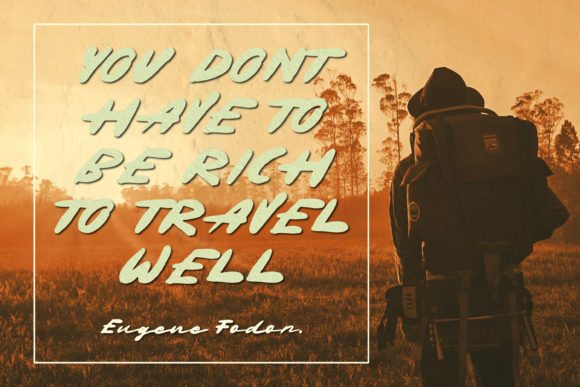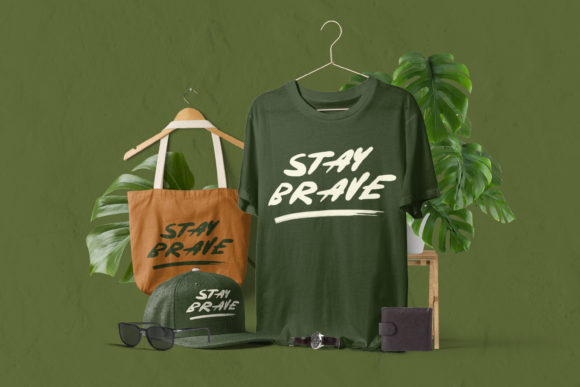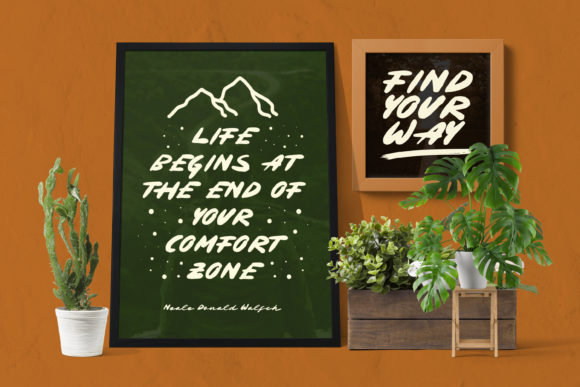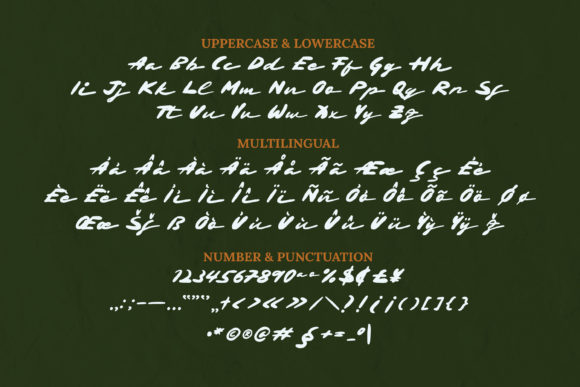
Introduction to Parapavel Font
Parapavel is a unique and exquisite handwritten font, perfect for adding a poetic feel to your creations.
Use it for business cards, book covers, websites, posters, and so much more .
Key Features of Parapavel Font
Parapavel Font offers exceptional quality and versatility, making it a valuable addition to your design toolkit. Whether you’re creating for personal projects or commercial use, Parapavel Font delivers professional results.